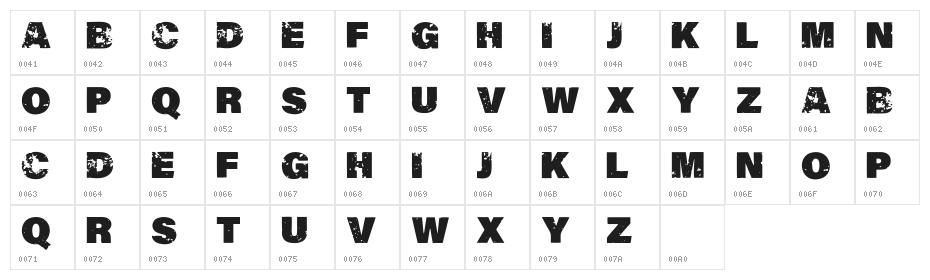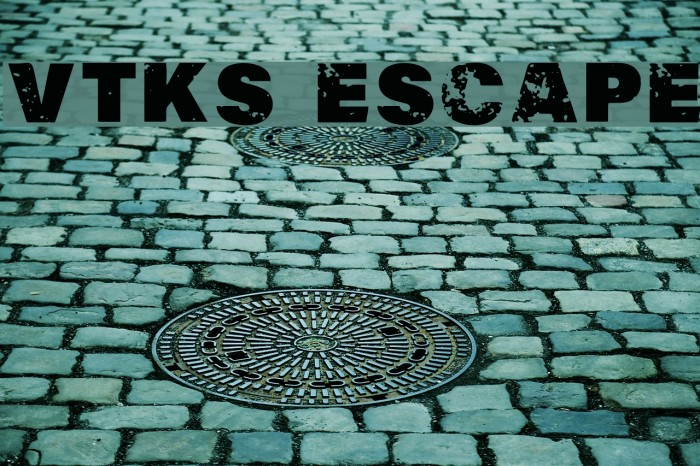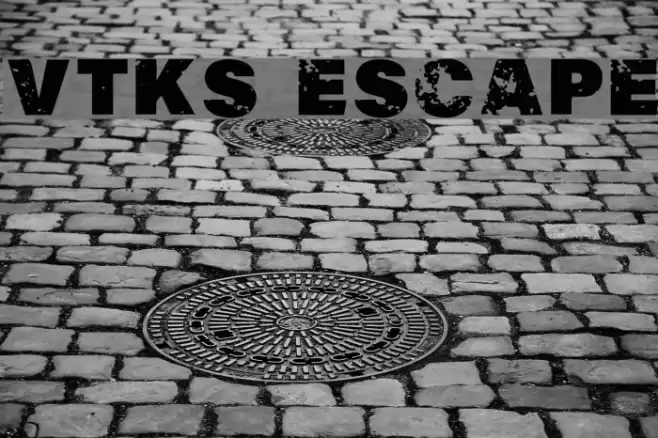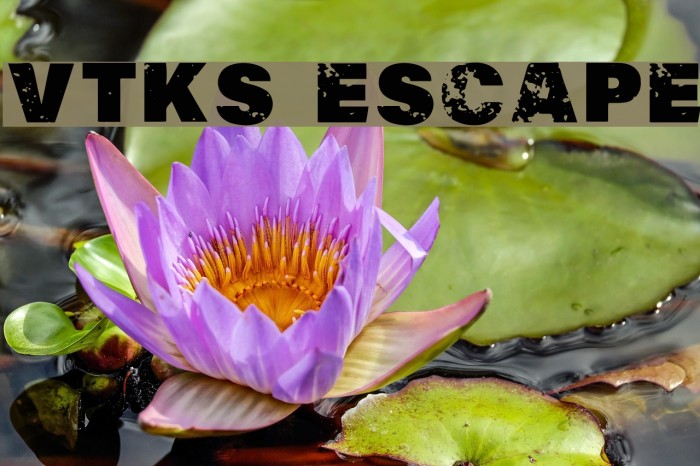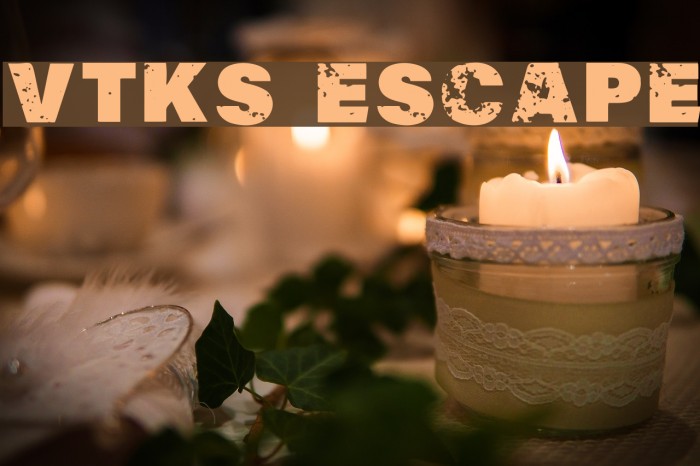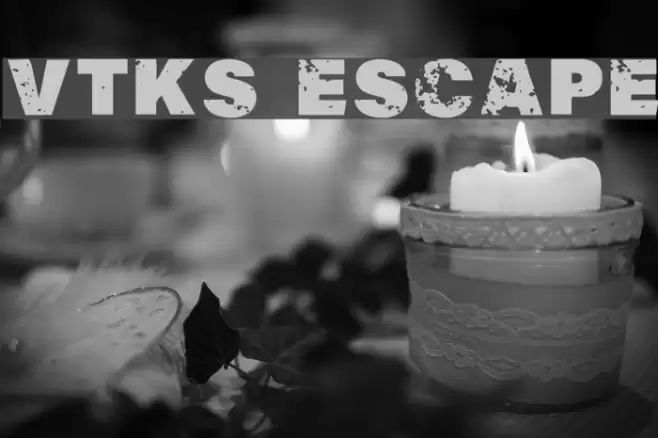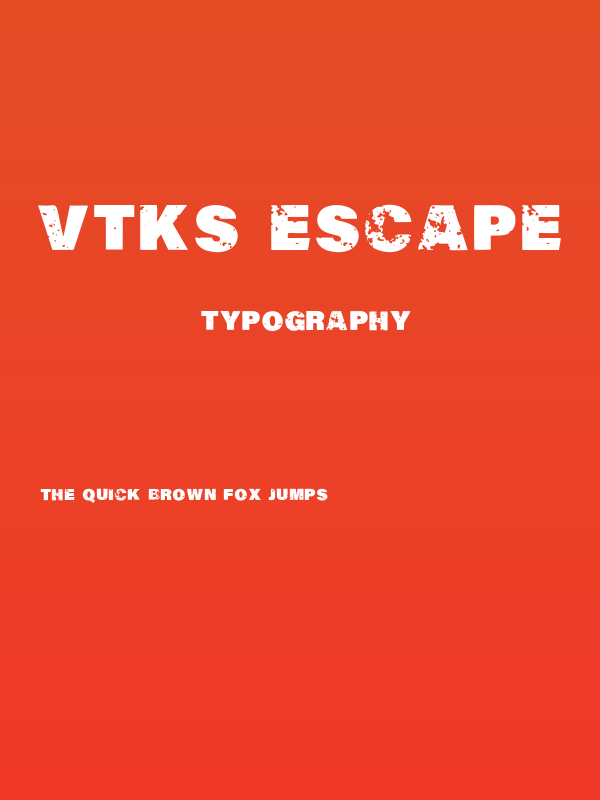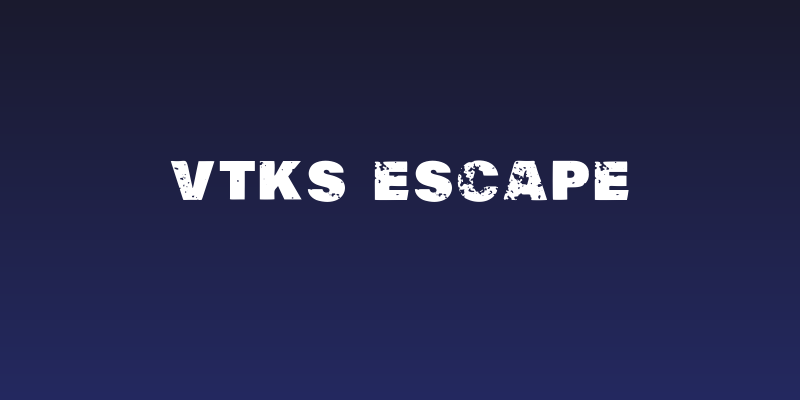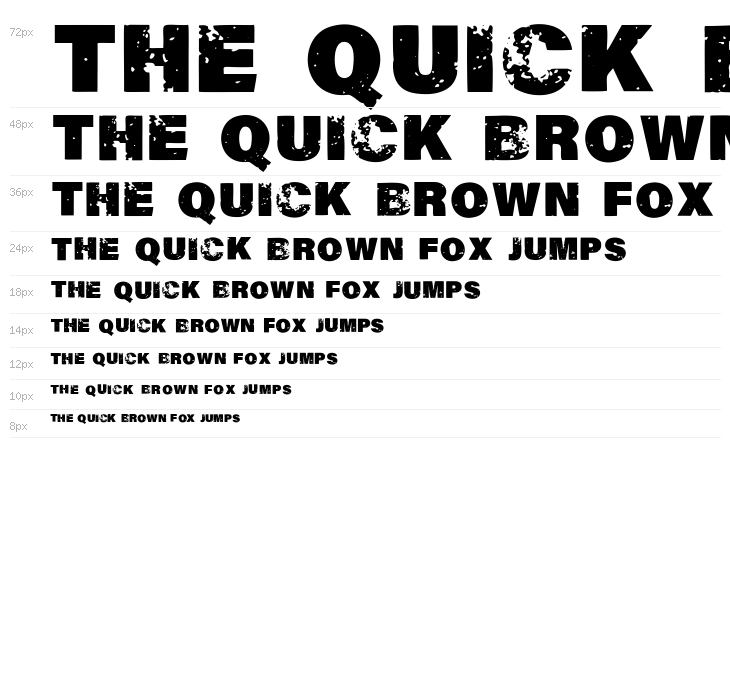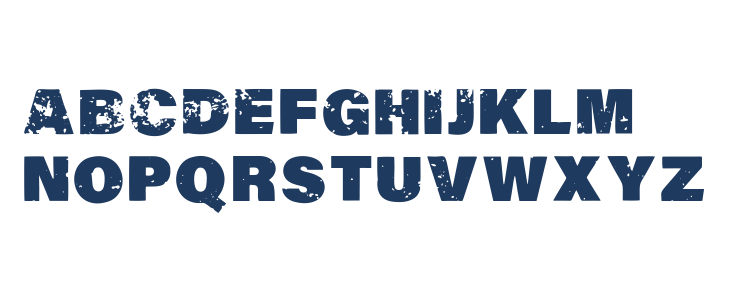
Vtks Escape Font
Vtks Escape Description
This font features a bold, distressed style with a textured appearance that gives it a rugged and worn look. The characters are uppercase and exhibit a strong presence, making them ideal for impactful designs. The texture within each letter adds a unique, grunge-like effect, reminiscent of weathered surfaces or vintage prints. This font is perfect for projects that require a bold statement with a touch of edginess. Its distinctive style can enhance designs that aim to convey a sense of history, rebellion, or urban culture.
| Overall Style | Vintage, Grunge |
| Proposed Projects | Ideal for posters, album covers, branding for edgy or vintage-themed products, and any design needing a bold, textured statement. |